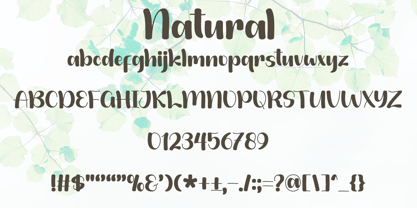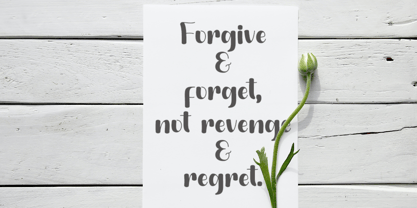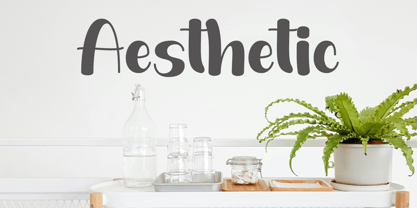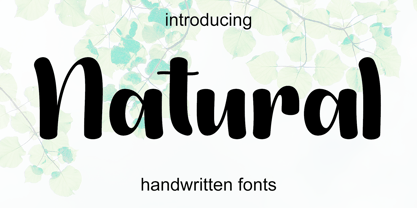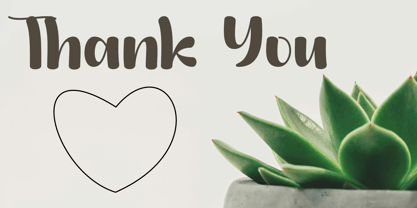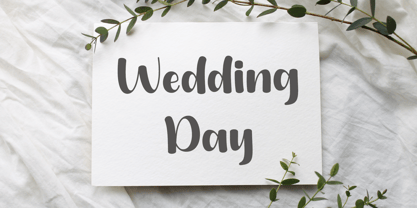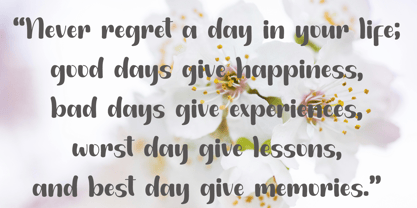
Natural
by Hardiboy Design
The Natural Font Family was designed by Hardiman Siswanto and published by Hardiboy Design. Natural contains 1 styles.
Get acquainted with “Natural,” an expressive brush-written font imbued with a spirited and bubbly flair. Personifying the essence of sheer glee and merriment, this playful font elevates your joyful birthday messages, lively party invitations, and any dynamic event marking a commemoration. Each stroke carries a unique casual elegance, infusing an intimate warmth into your artistic pieces. Brimming with an enchanting allure, Natural possesses the ability to magnificently revolutionize your designs with a creative glow. Rooted in jubilance, permit your font to converse in the dialect of celebration with Natural.
Designers: Hardiman Siswanto
Publisher: Hardiboy Design
Foundry: Hardiboy Design
Design Owner: Hardiboy Design